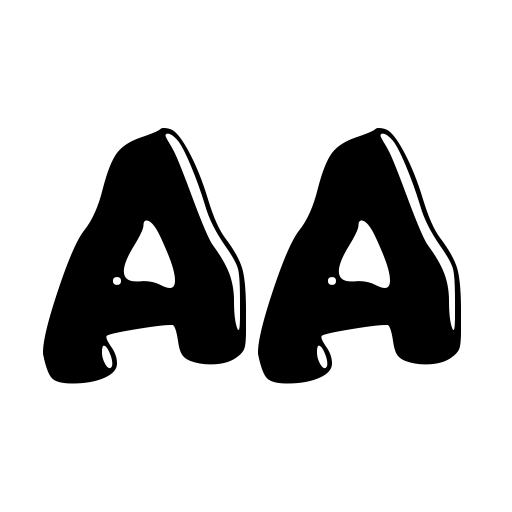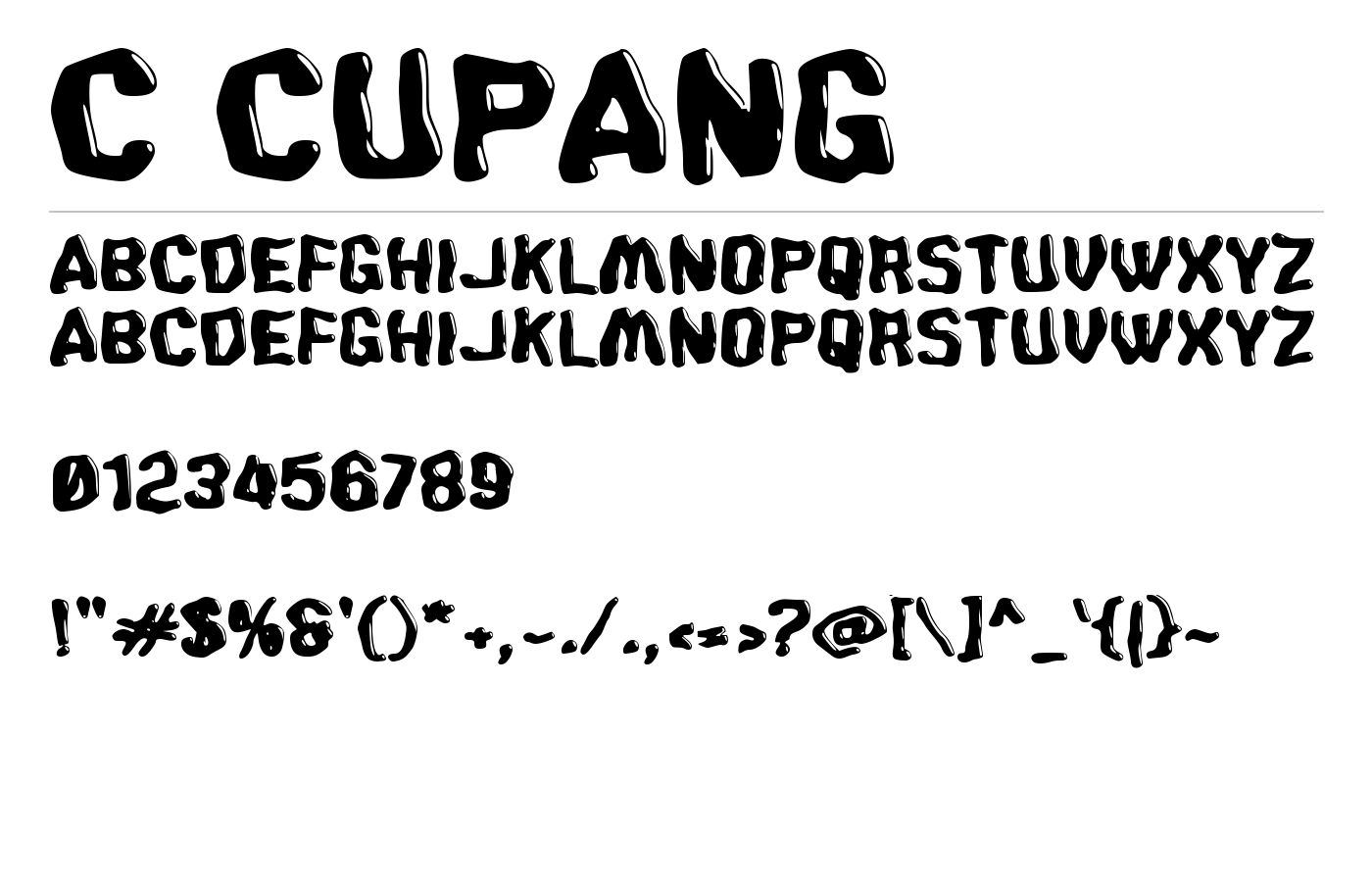
Cupang is a bold, playful sans serif font characterized by thick, irregular strokes and a slightly condensed width that gives it a quirky, hand-drawn feel. The letters have a chunky, uneven shape with a fun, energetic vibe perfect for projects that want to convey creativity and approachability. This font works well for eye-catching headlines, posters, and branding that needs a casual, unique personality.
c Cupang Font